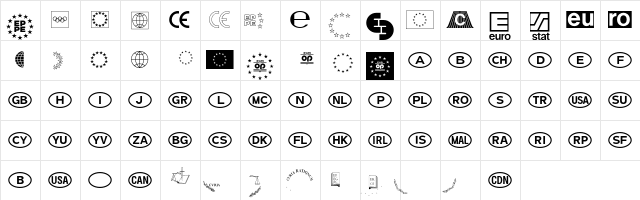
EEC LH Pi Regular
Design Context for EEC LH Pi Typeface
EEC LH Pi takes a measured approach to typography — its balanced proportions and neutral character make it a reliable workhorse for both digital and print work.